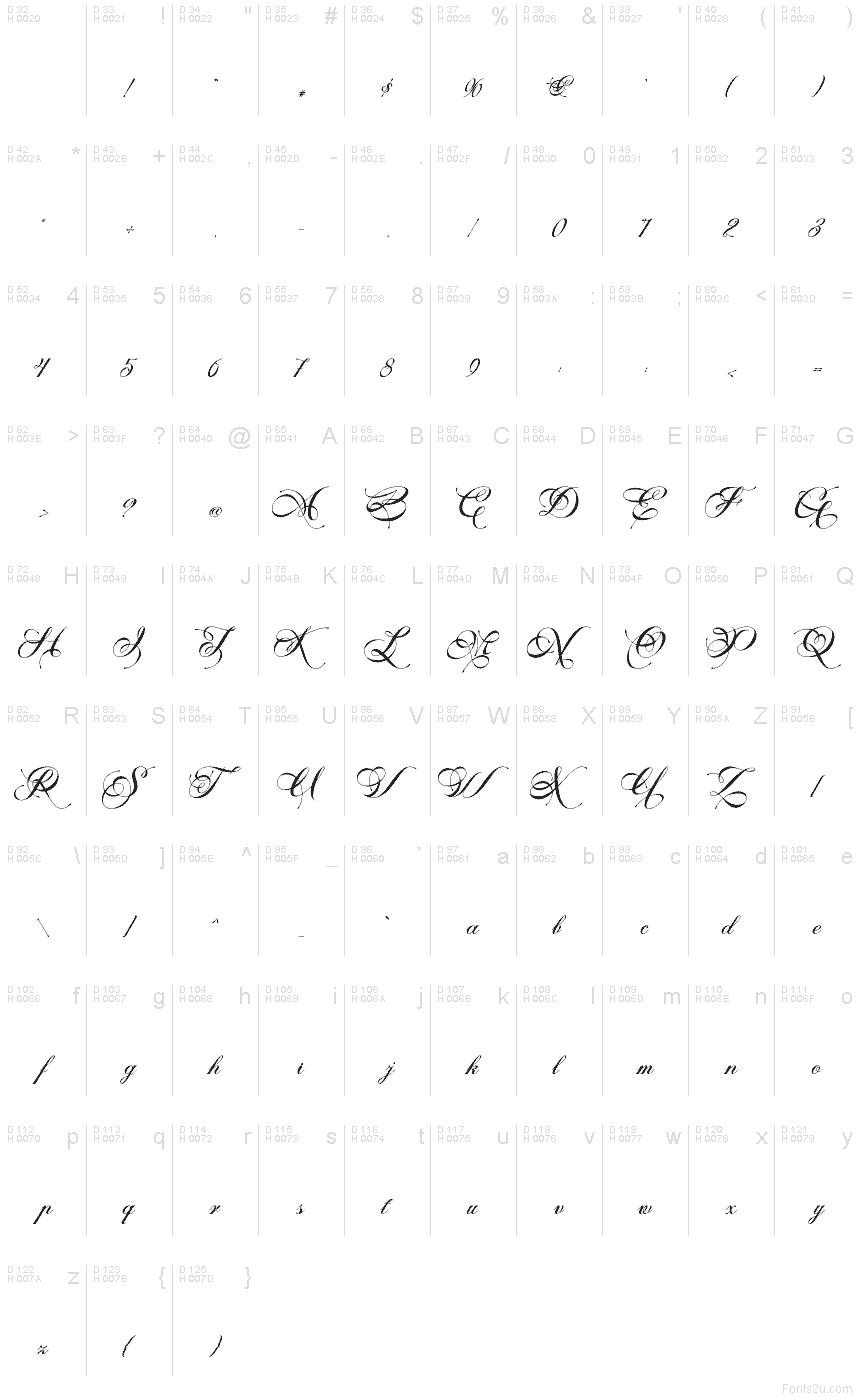
Christmas Angely font by Letterara is a free calligraphy font that beautifully blends modern style with elegant, decorative flourishes. Its ornate and flowing script offers a graceful aesthetic perfect for occasions demanding sophistication and charm.
Ideal for holiday greeting cards, invitations, logos, packaging design, book covers, social media posts, event posters, wedding stationery, apparel design like t-shirts and tote bags.